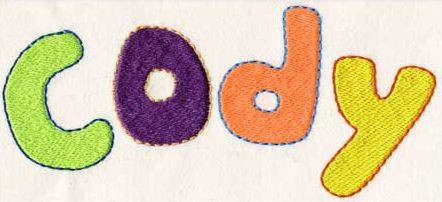
119 Fun House Fill/Outline Font
Fun House Font in fill stitch with triple stitch outline comes in 1, 2 & 3 inch sizes. Uppercase, lowercase and numbers included in each size.